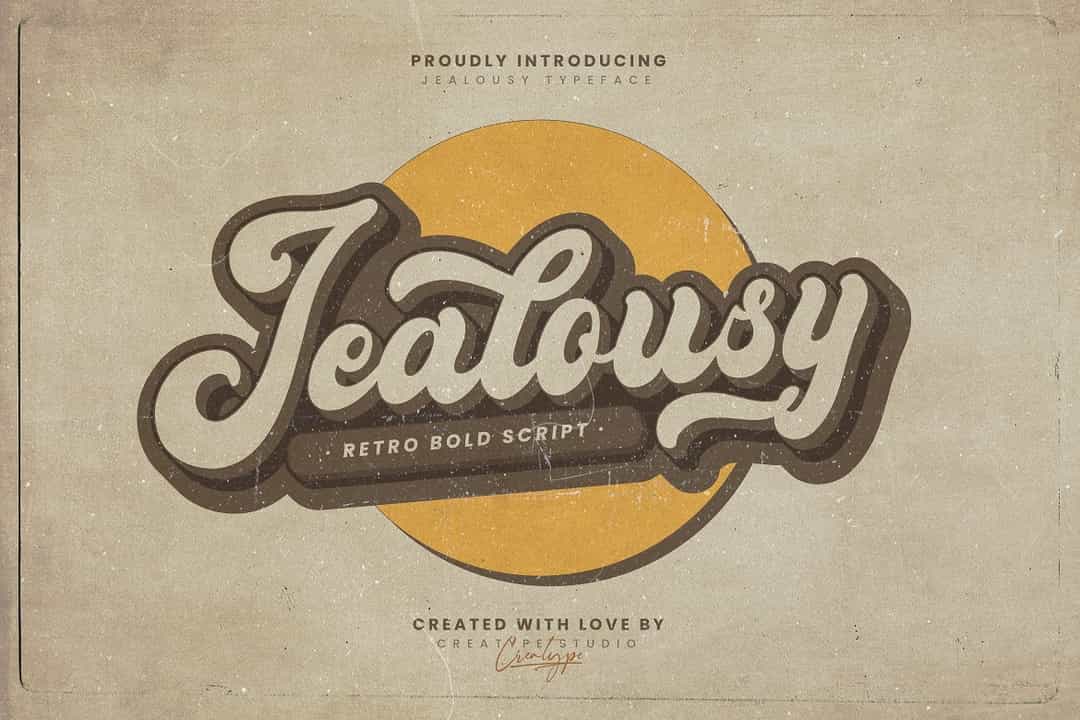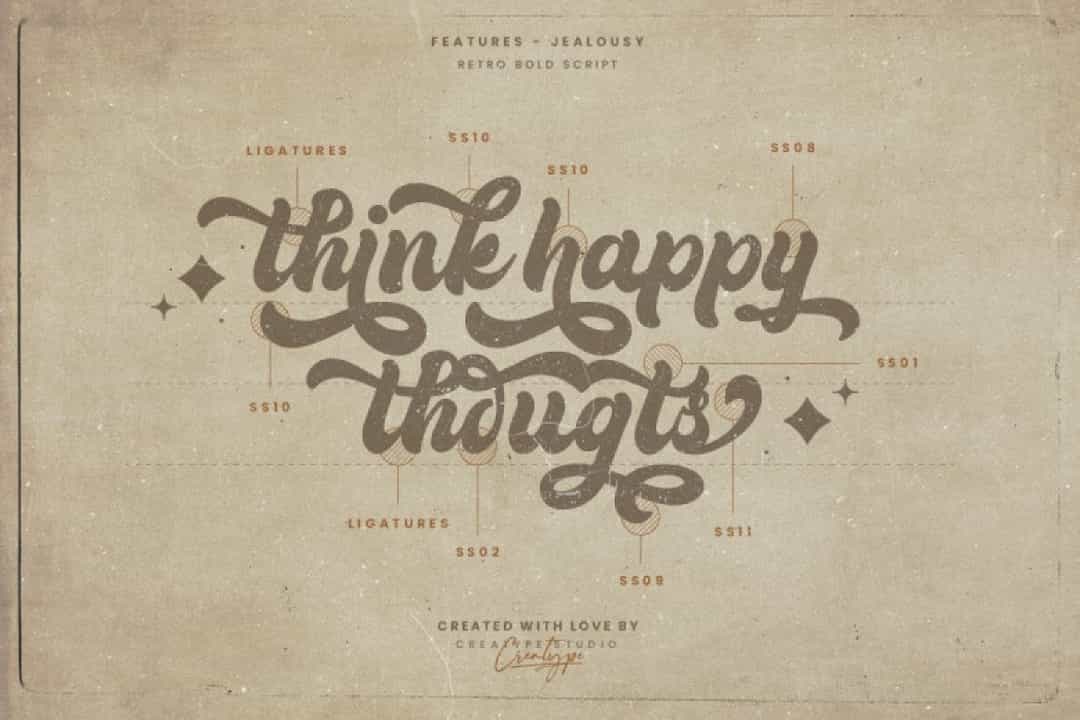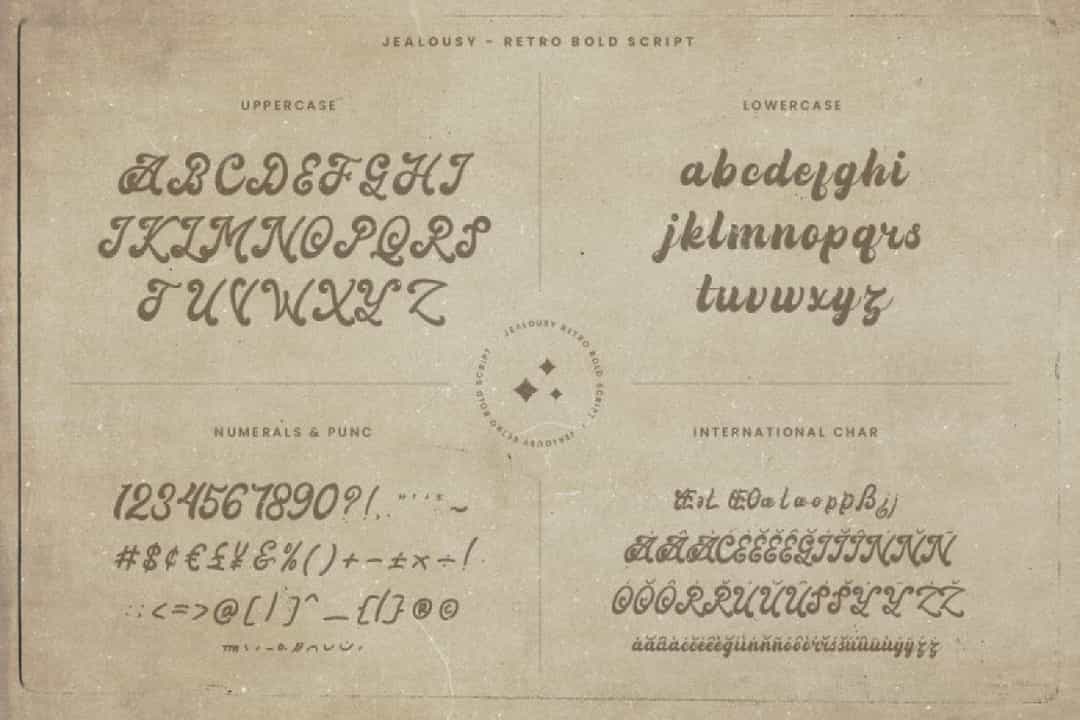
Jealousy Script Font boasts an old-fashioned yet bold style, inspired by the 1960s and 80s, taking you back in time and reminding you how it was back then. Perfect for logos, branding projects wedding designs as well as social media posts ads packaging products photography designs labels photography watermark stationery invitations watermark stationery invites or any task requiring handwriting – Jealousy is perfect!